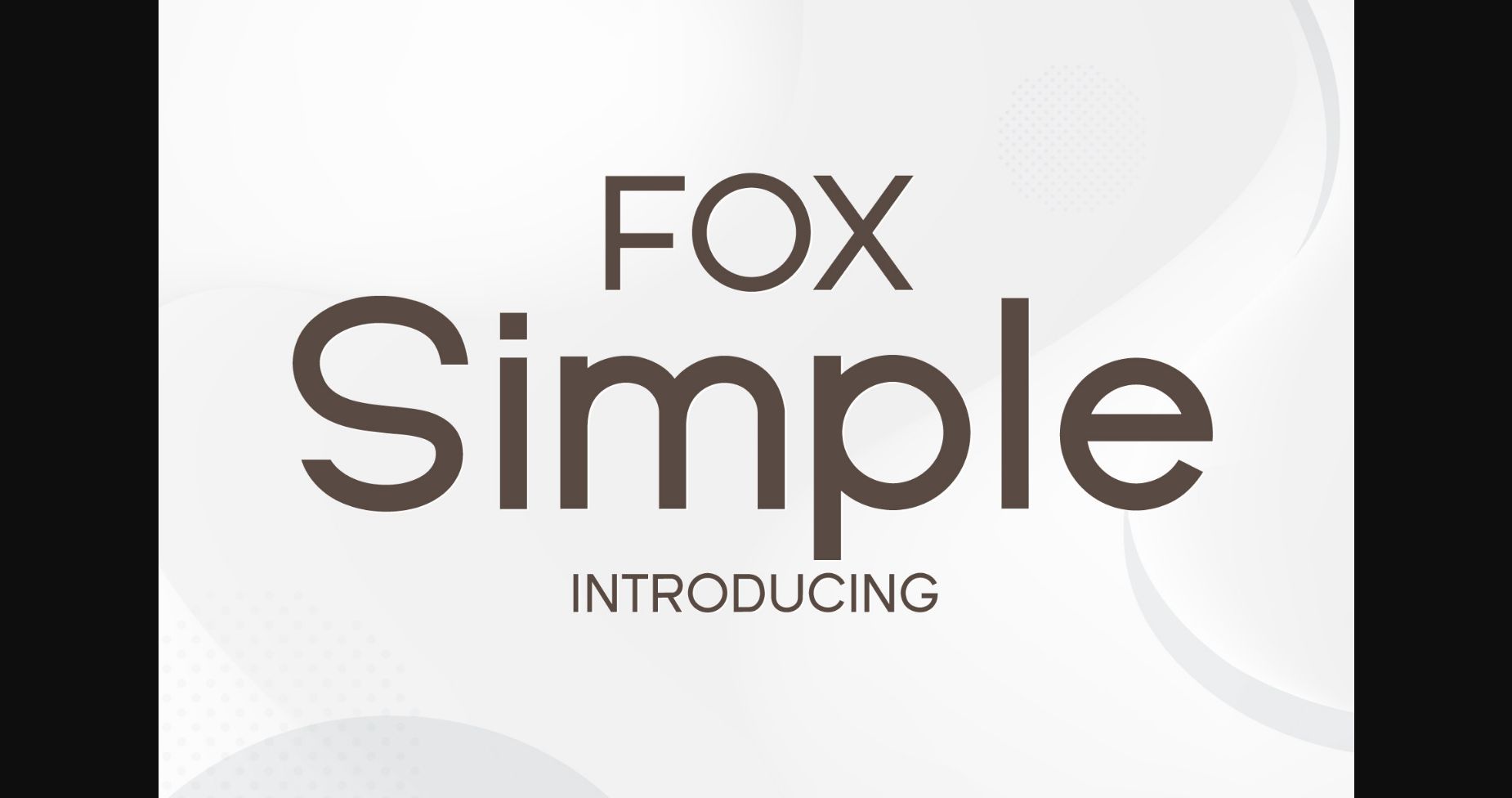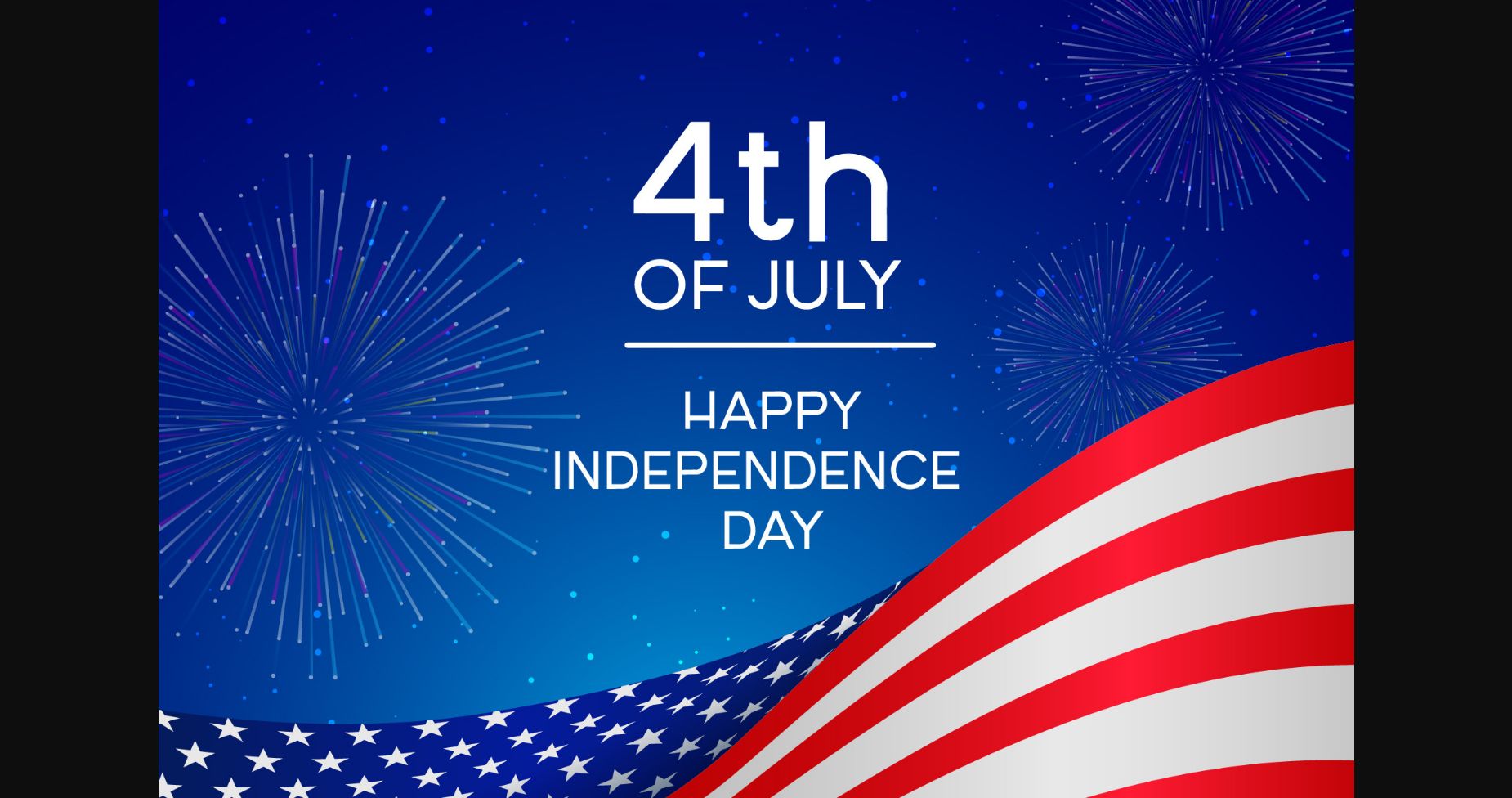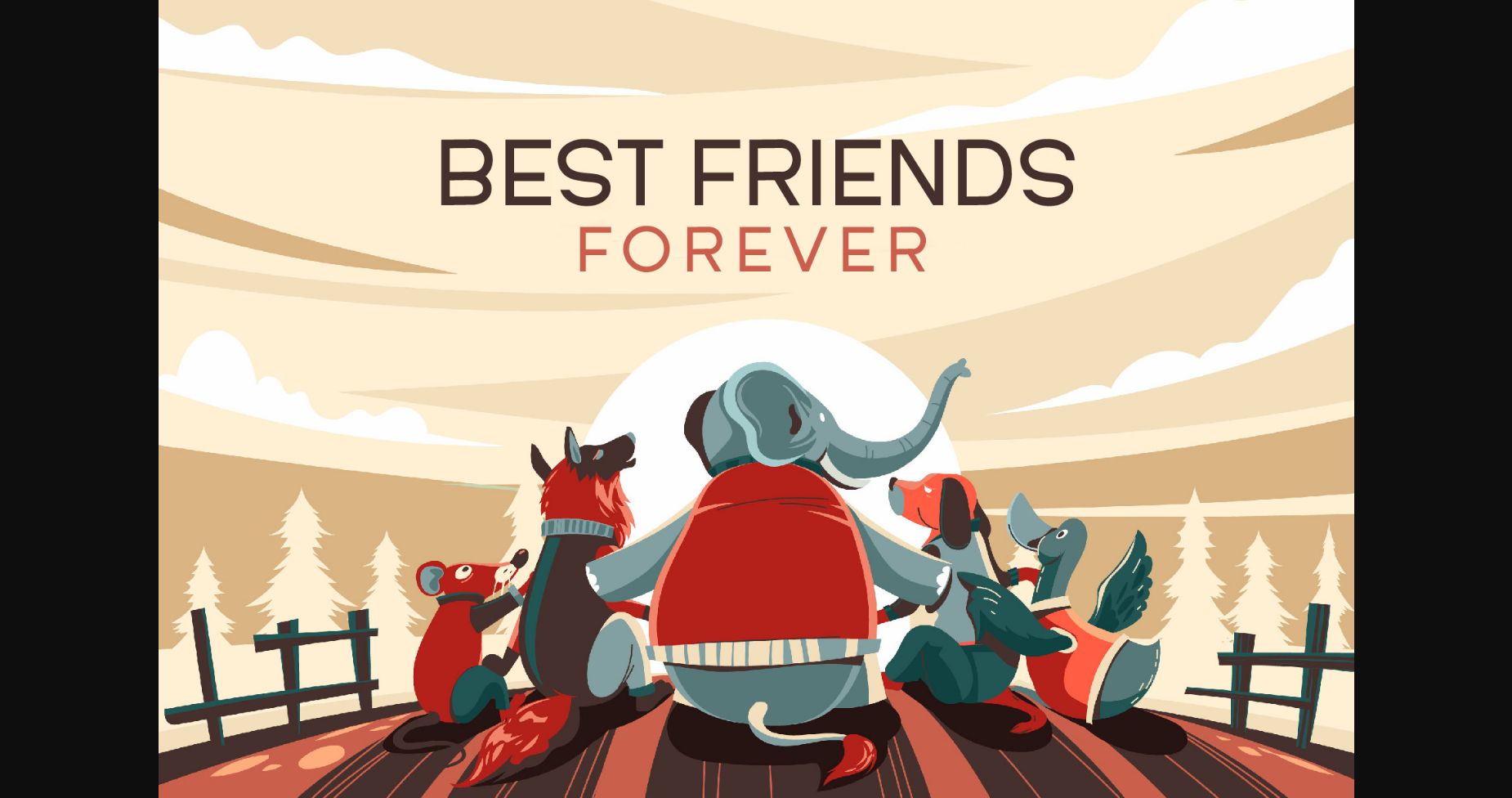
About Fox Simple Font
Fox Simple is a subtle and simple sans serif font well with a wide range of other fonts. Whether you’re designing a logo, a website, or a print project, Fox Simple Font will elevate your work with its effortless style and sophistication. so add it to your creative ideas, and notice how it makes them stand out!